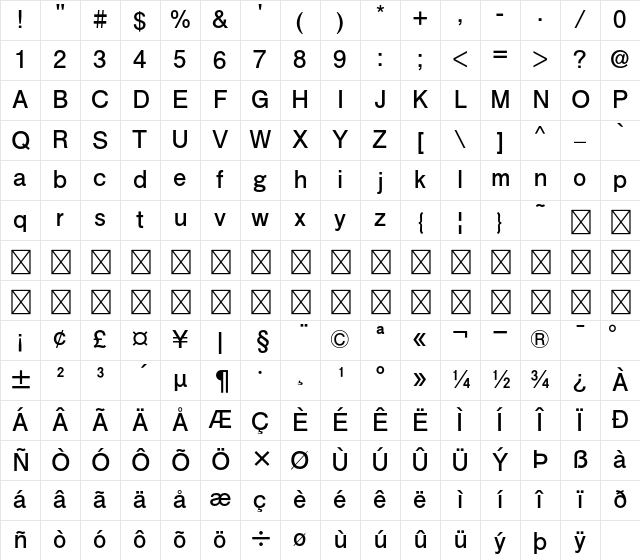
A-OTF Futo Go B101 Pro Bold
Design Context for A-OTF Futo Go B101 Pro
A-OTF Futo Go B101 Pro is a composed and adaptable typeface that performs quietly and consistently across a wide range of design contexts. Its bold stroke weight gives it real presence on the page.
Pro Tip: Use A-OTF Futo Go B101 Pro in both headline and body roles to test its range before committing to a single application.